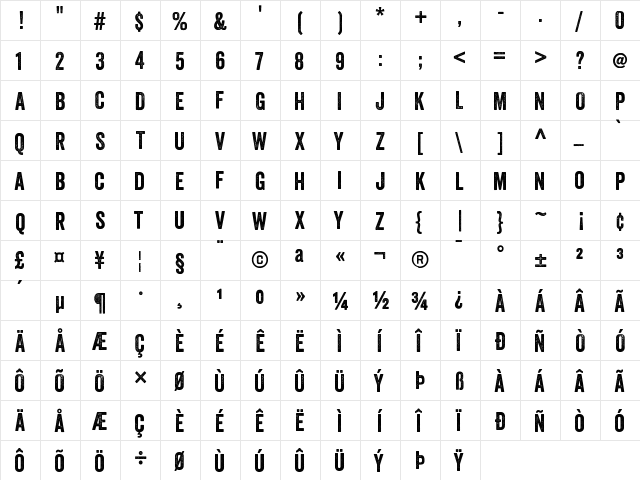
Veneer Regular
| Foundry | Ryan Martinson |
| Designer | Ryan Martinson |
Design Context for Veneer Typeface
Veneer offers clean, dependable letterforms without strong stylistic allegiance, making it a practical choice for designers who need flexibility.
Pro Tip: Pair Veneer with a font of contrasting weight or personality to build a more expressive typographic hierarchy.